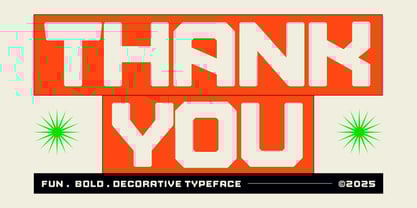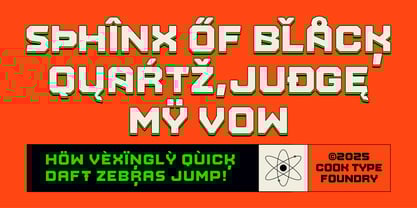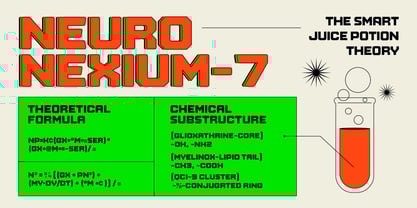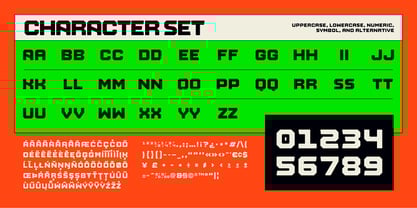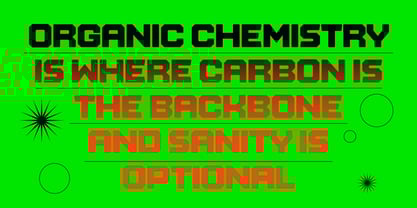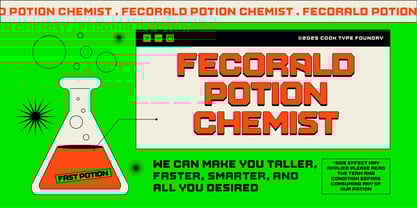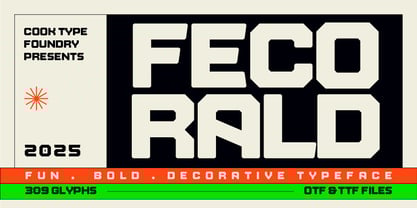
Cook Fecorald
by Graphicook Studio
The Cook Fecorald Font Family was designed by Gumilar Febriansyah and published by Graphicook Studio. Cook Fecorald contains 1 styles. More about this family
Fecorald is a decorative font presented in a bold, modern, futuristic style. Its distinctive shapes convey strength and innovation, making it ideal for game-themed designs, industrial concepts, or tech-focused logos. It is perfect for headlines, logotypes, magazines, packaging, quotes, movies, games, cover albums, book covers, and flyers, it's a perfect solution for creating eye-catching designs that stand out in any context.
Designers: Gumilar Febriansyah
Foundry: Graphicook Studio